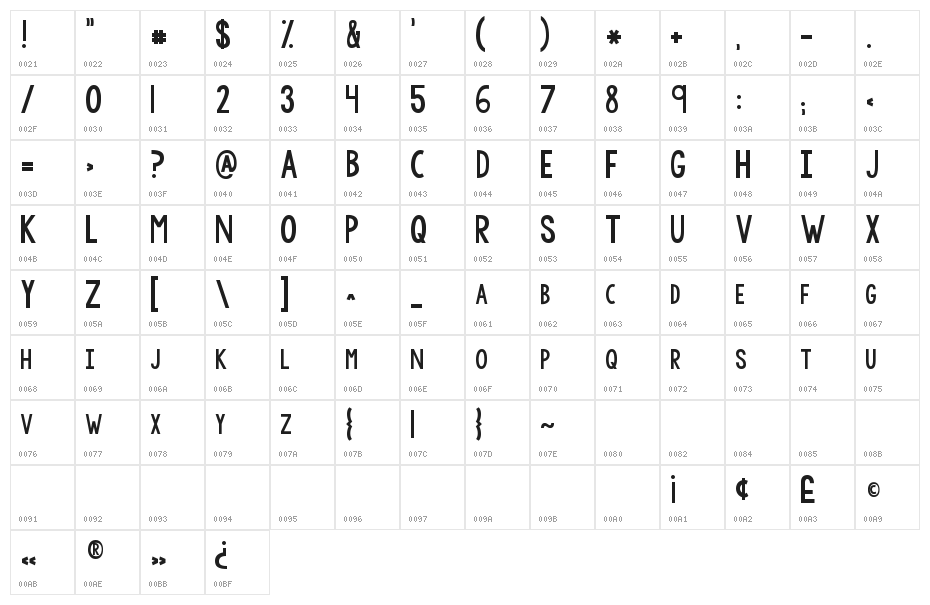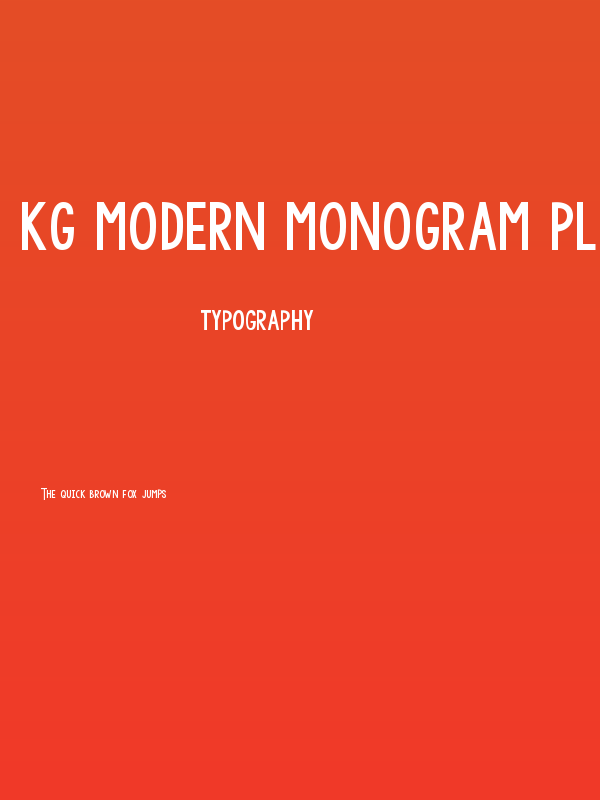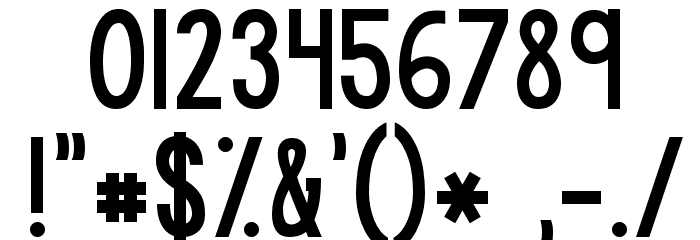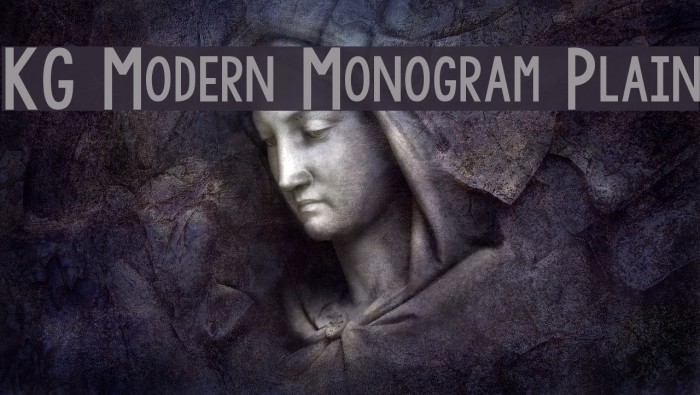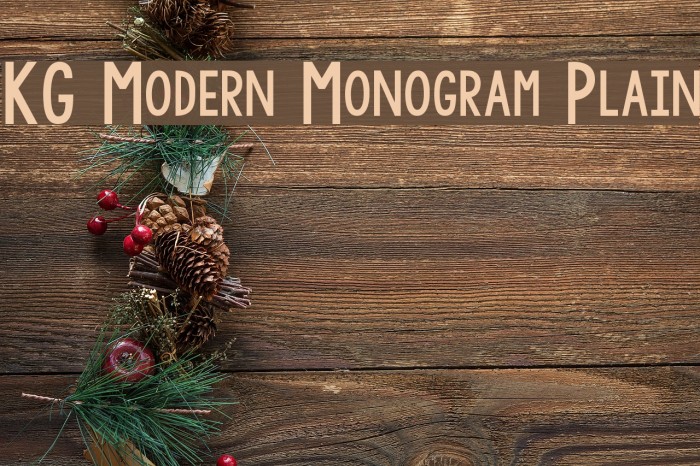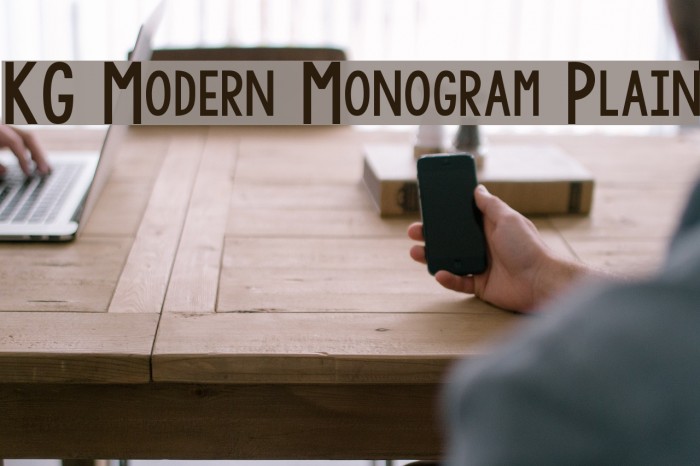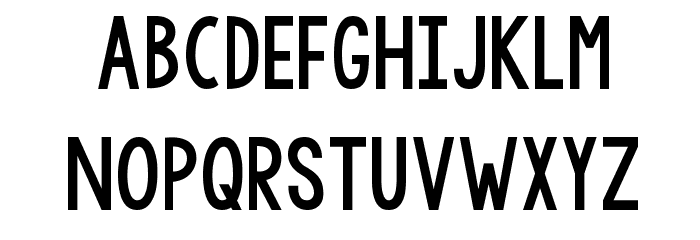
KG Modern Monogram Plain Font
KG Modern Monogram Plain Description
This font features a clean and modern design with a strong geometric structure. The uppercase letters are bold and assertive, while the lowercase letters maintain a consistent height and width, providing a uniform appearance. The numerals are clear and easily distinguishable, making them suitable for various applications. Special characters are well-defined, adding versatility to the font. The overall design is straightforward, with a focus on readability and simplicity, making it suitable for both digital and print media.
| Use Case | Headlines, Logos, Signage |
| Proposed Projects | Ideal for branding, signage, headlines, and digital content where clarity and modernity are key. |